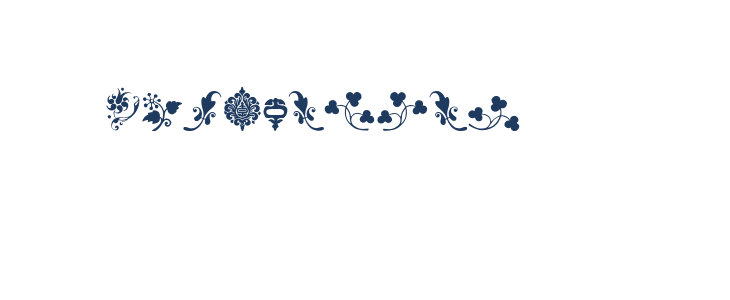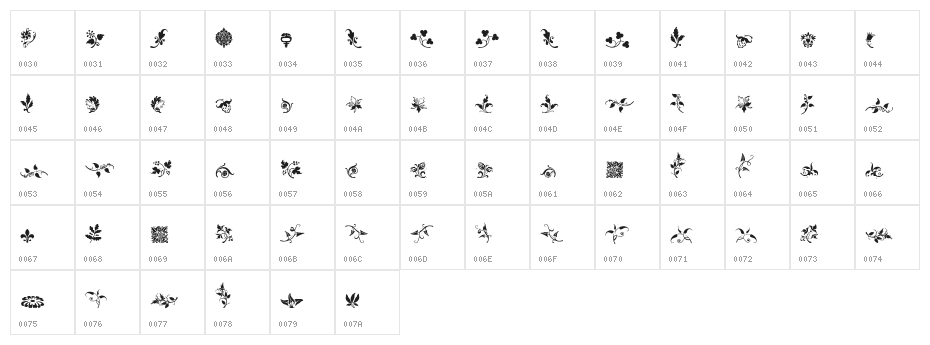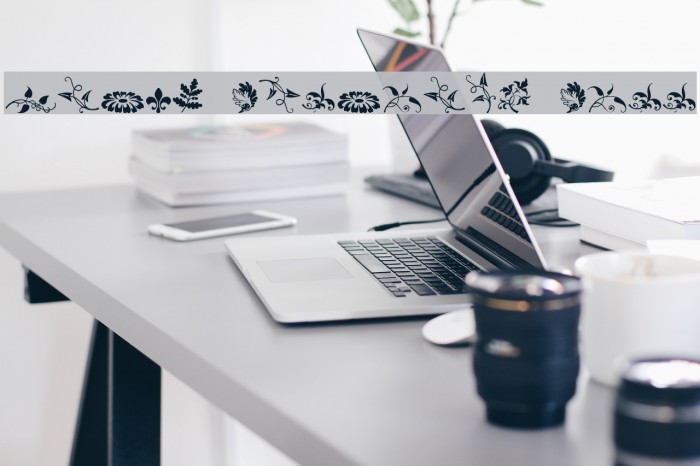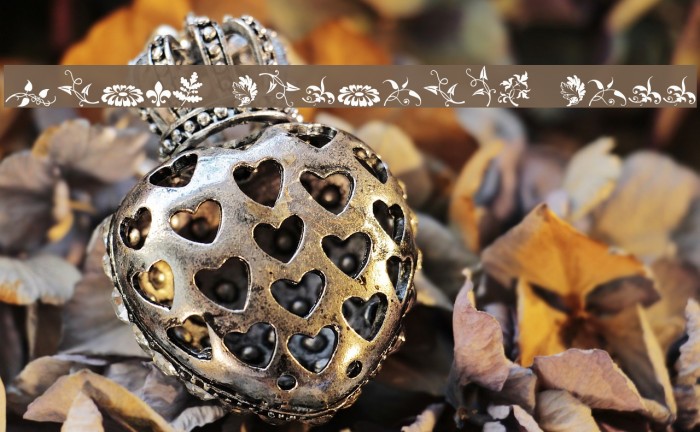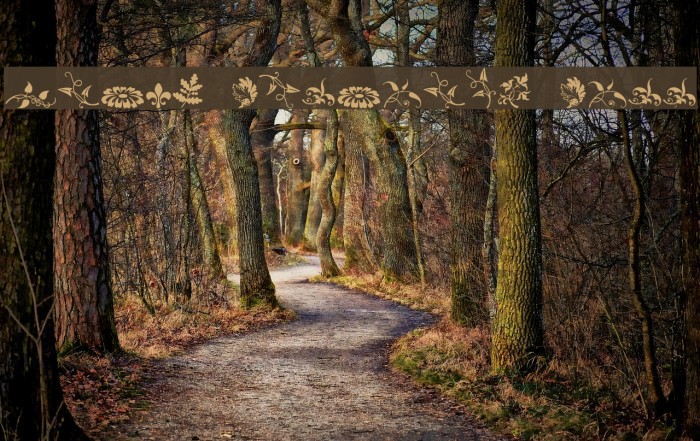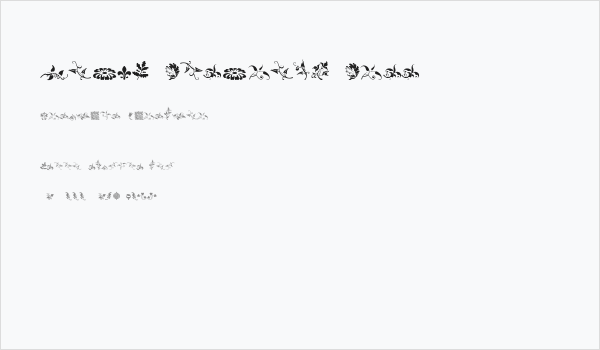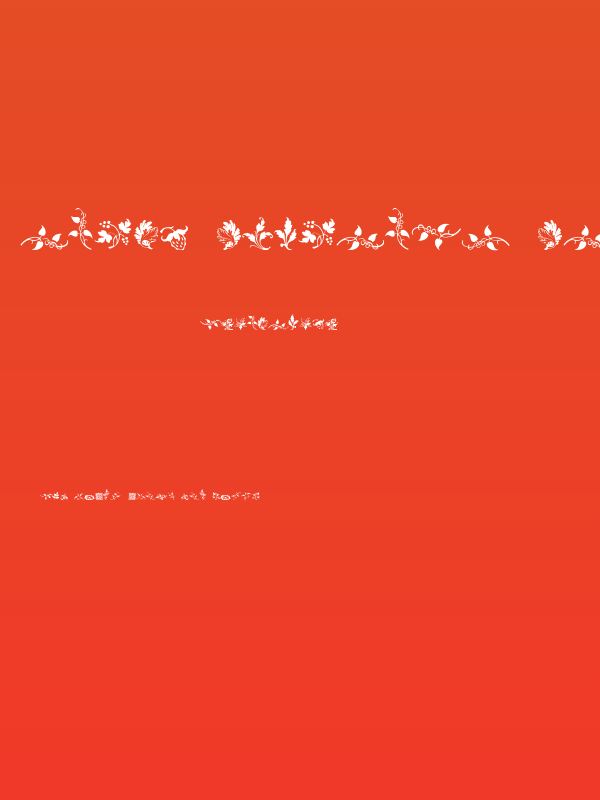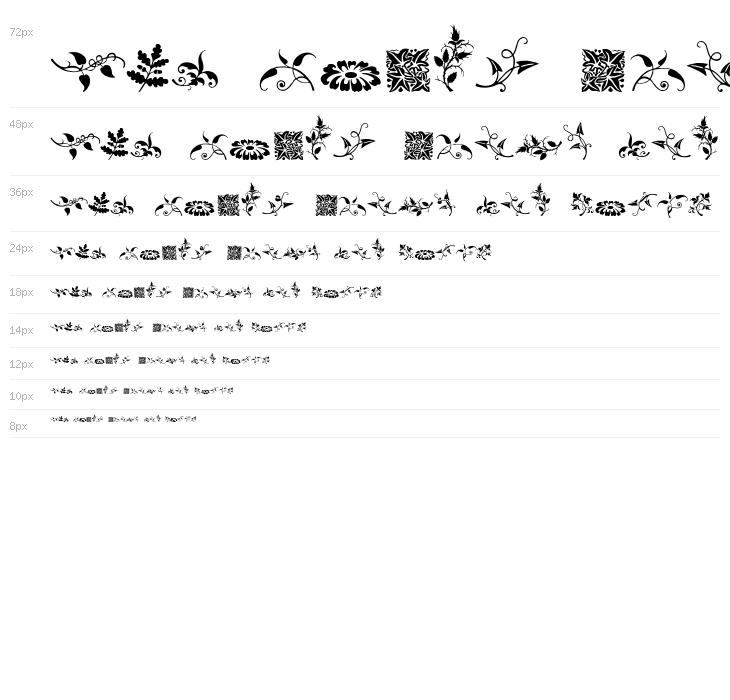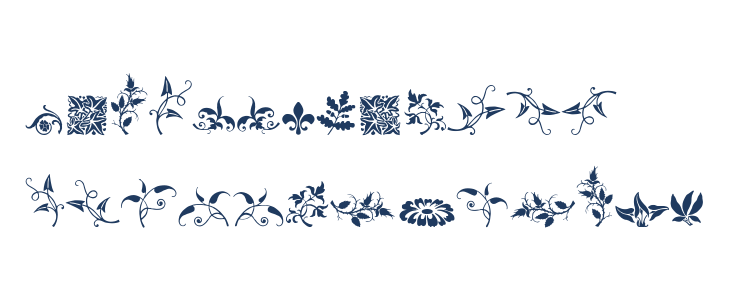
Rough Fleurons Free Font
Rough Fleurons Free Description
A decorative collection of ornate floral and botanical motifs, featuring intricate swirls, leaves, flowers, and symmetrical flourishes. The designs are highly detailed, with a hand-drawn, vintage appearance, and are primarily black on white, suitable for embellishing borders or accenting designs.
| Overall Style | Vintage, Decorative |
| Use Case | Borders, Accents, Decorative elements |
| Proposed Projects | Wedding invitations, certificates, book covers, decorative borders, vintage posters, scrapbooking, ornamental dividers. |